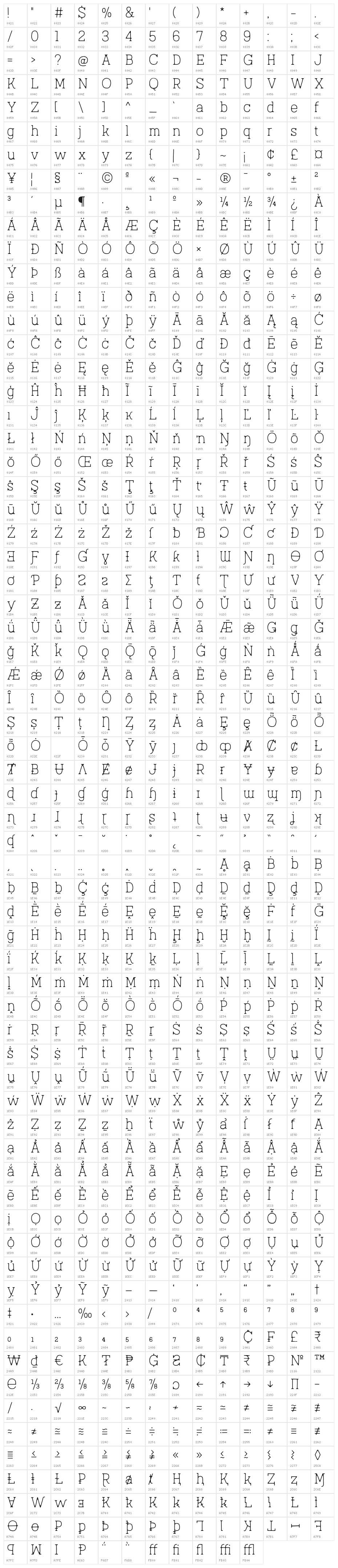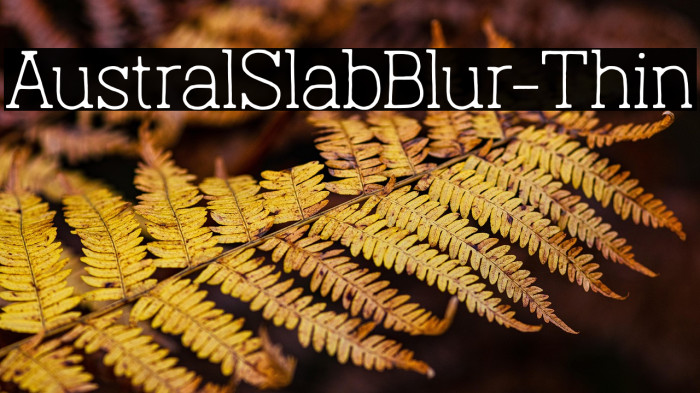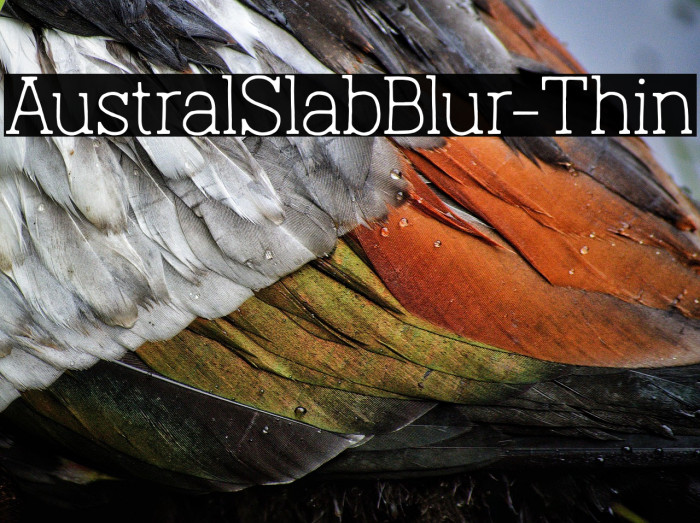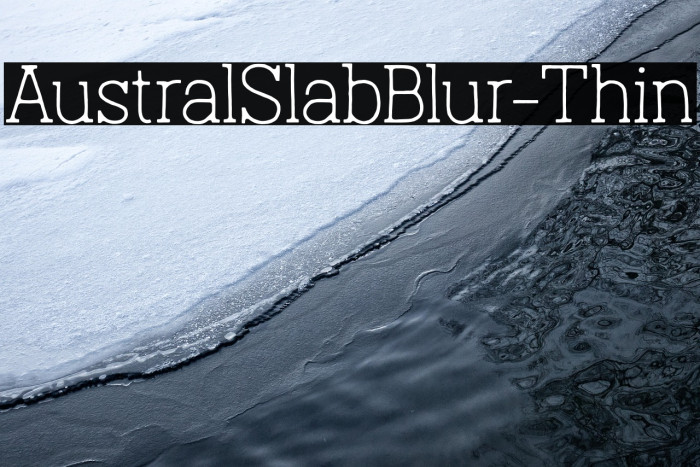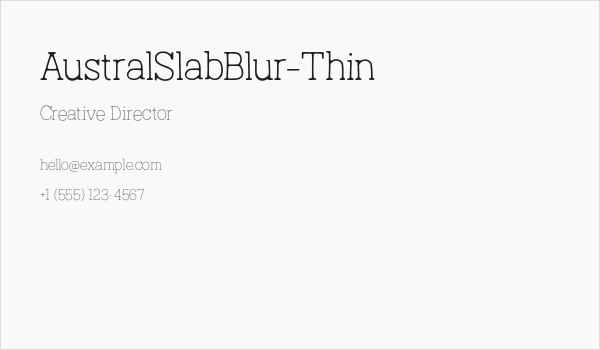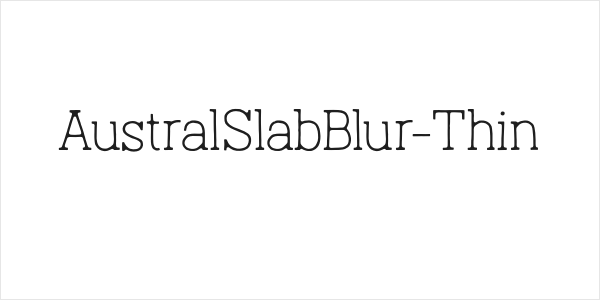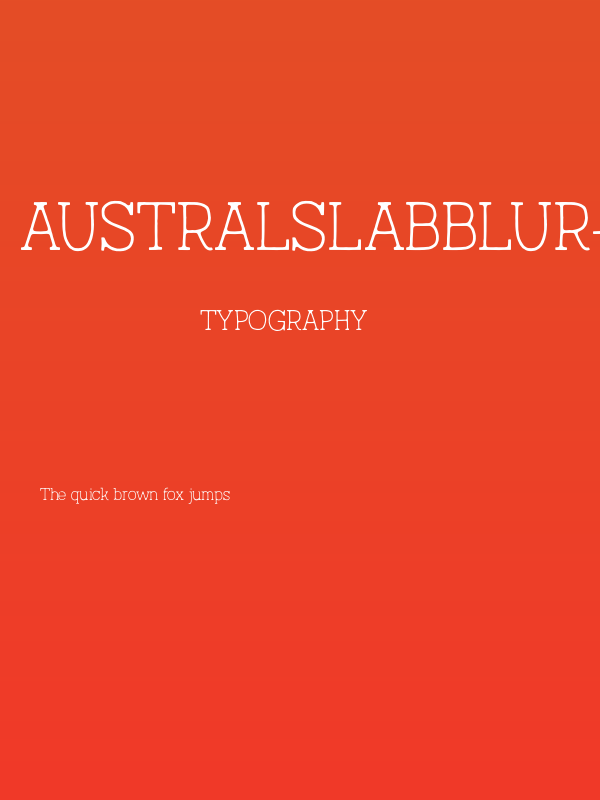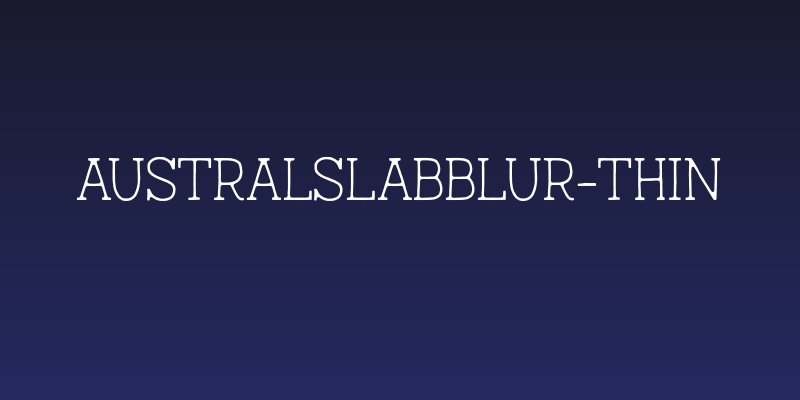
AustralSlabBlur-Thin Font
AustralSlabBlur-Thin Description
This font features a distinctive slab serif style with thin strokes that give it a modern yet slightly vintage appearance. The characters are well-defined with a subtle blur effect, adding a unique touch to the overall design. The uppercase letters are bold and prominent, while the lowercase letters maintain a consistent style with slightly rounded edges. The numerals are clear and easy to read, making them suitable for various applications. Special characters are included, providing versatility for different design needs. The font's thin weight and slab serif characteristics make it ideal for projects that require a blend of modernity and classic appeal.